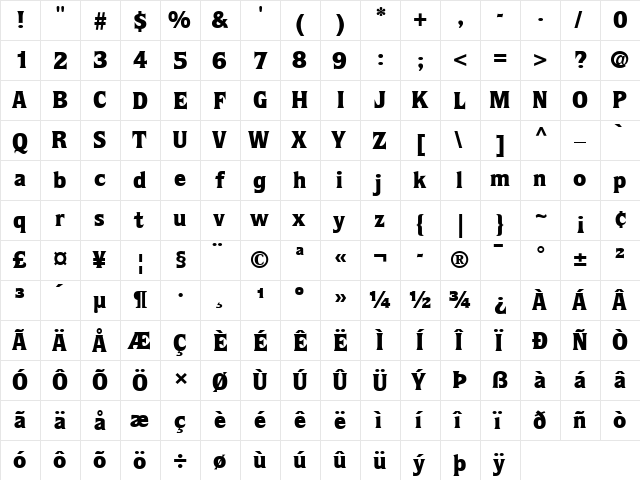
Quorum LT Medium Bold
Design Context for Quorum LT Medium Typeface
Quorum LT Medium is a composed and adaptable typeface that performs quietly and consistently across a wide range of design contexts. The heavy weight commands attention and anchors typographic hierarchies.